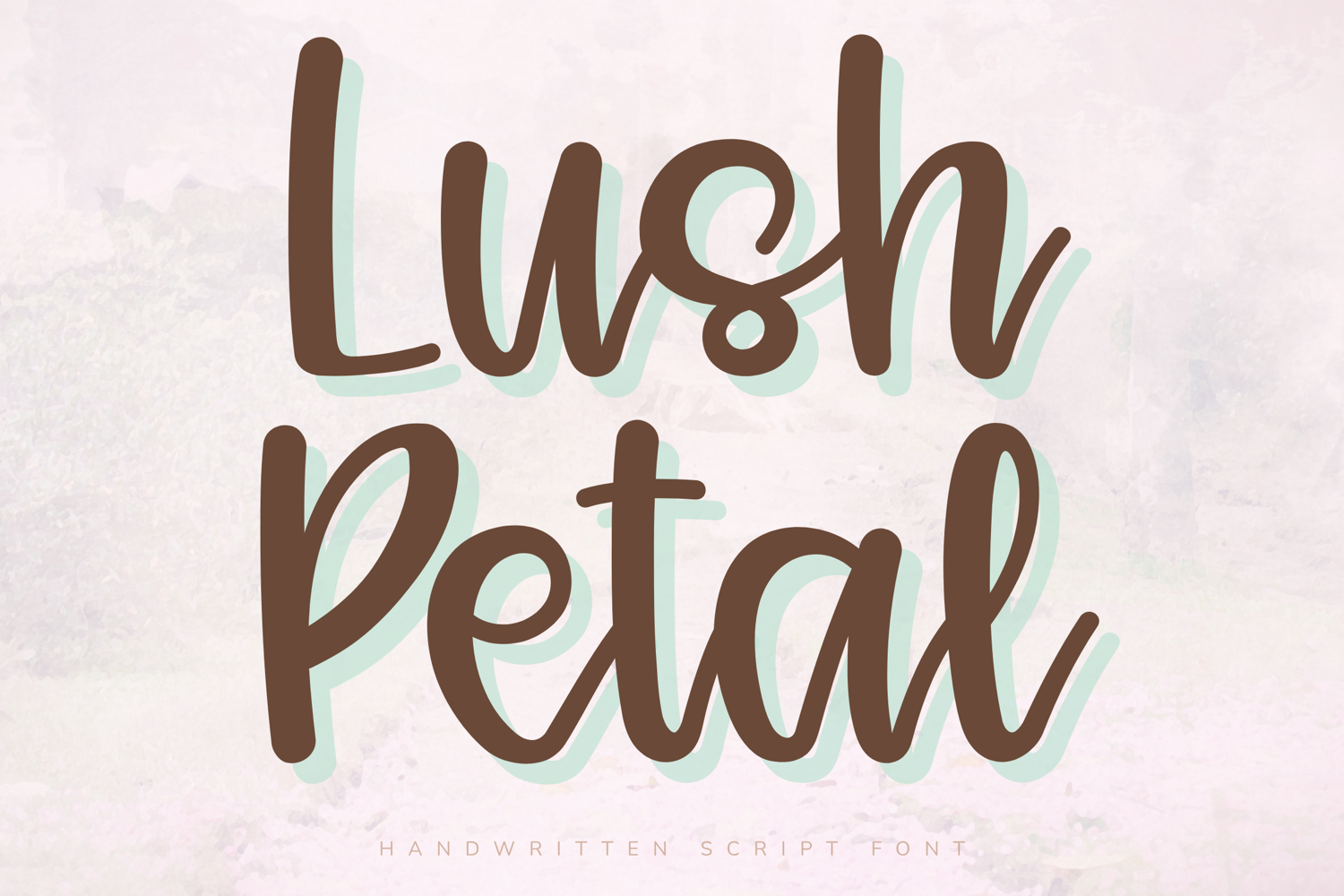
Lush Petal - Handwritten Script Font
Lush Petal – Handwritten Script Font
Lush Petal is a fresh and elegant handwritten script font inspired by the softness of blooming flowers and the beauty of natural handwriting. With bold rounded strokes, graceful curves, and a warm feminine personality, this font creates a charming aesthetic that feels both playful and sophisticated.
Its clean and highly readable letterforms make Lush Petal perfect for Cricut projects, planner covers, journals, stickers, branding, packaging, wedding designs, and social media graphics. The handcrafted style adds a gentle, organic touch to any creative project.
Key Features:
Uppercase and lowercase letters
Numbers and punctuation
Bold handwritten script style
Smooth rounded letterforms
Perfect For:
Cricut and Silhouette projects
Stickers and printables
Wedding stationery
Product packaging
Logos & Branding
Social media graphics
Planner and journal designs
Best Use Cases:
Wedding invitations
Candle labels
Boutique branding
Stickers and printables
Product packaging
Planner dashboards
Design Style:
Lush Petal combines natural softness with modern readability. The flowing curves and balanced proportions create a feminine handwritten font that feels romantic, fresh, and versatile.